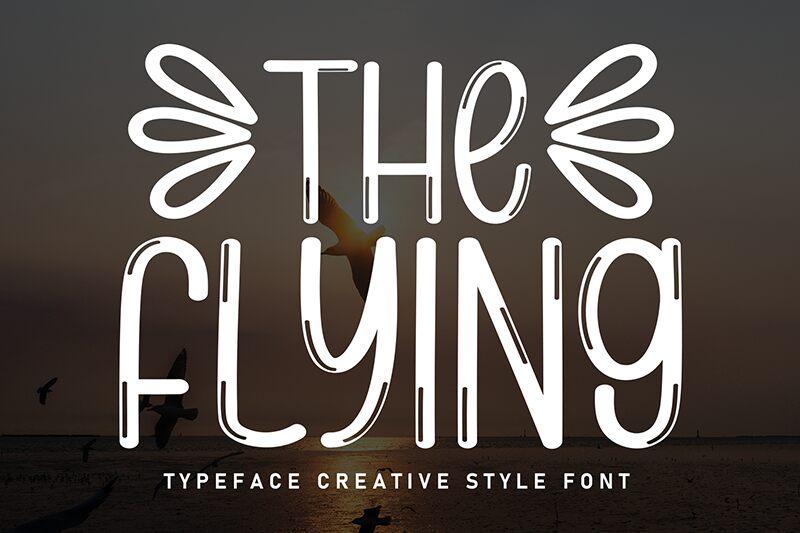
The Flying
The Flying font designed by Scratchones is a brush-condensed typeface that exudes casual elegance. This retro-inspired font brings an artistic flair and vintage vibe with its graceful curves and unique charm. Perfect for attention-grabbing headlines or artistic projects, its balanced design offers versatility and charisma, fitting seamlessly into both modern and classic aesthetics.
Take advantage of The Flying in packaging designs, art quotes, publishing projects, book covers, gaming platforms, digital artwork, greeting cards at all occasions including weddings and celebrations. Use this free brush font for promotional materials like posters and flyers or even logo/branding designs among other options.